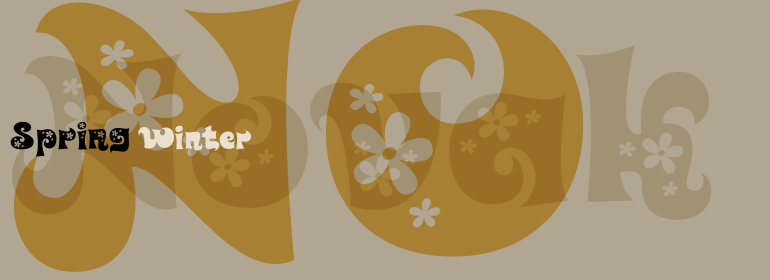
The Novak Font is perfect for Eastern European restaurant branding, Slavic cultural festivals, Czech brewery labels, Polish community centers, Croatian tourism materials, Serbian Orthodox church signage, Slovak heritage museums, traditional folk art exhibitions, European immigration history projects, and authentic Central European cultural communications.
What makes the Novak Font exciting is its remarkable ability to capture the resilient spirit and rich cultural heritage of Central and Eastern European communities through strong, dignified letterforms that embody centuries of Slavic tradition, perseverance, and cultural pride. This distinguished typeface features robust construction, traditional proportions, and heritage-inspired character variations that instantly convey authenticity, strength, and the deep-rooted family values that have sustained Slavic communities through generations of triumph and adversity. Each letter carries the weight of ancestral wisdom and the enduring spirit of Eastern European resilience.
The Novak Font family includes regular, bold, condensed, and ornamental versions, along with Slavic symbols, traditional ornaments, and cultural decorative elements that enhance its authentic appeal across various Eastern European and heritage design applications.
Whether you're creating Slavic heritage brand identities or designing authentic Eastern European cultural materials, Novak Font Free Download delivers maximum authenticity and genuine Central European character. Its expertly crafted traditional letterforms ensure excellent readability while maintaining that essential heritage quality that speaks to Slavic communities and Eastern European culture enthusiasts worldwide. The font's cultural features include contextual alternates, traditional ligatures, and heritage variations that automatically create authentic Slavic aesthetics. Eastern European business owners and cultural organizations consistently choose this font for projects requiring genuine Slavic credibility and authentic Central European appeal. The Novak Font transforms ordinary text into powerful expressions of Eastern European pride, making it an essential component of any designer's multicultural typography collection.